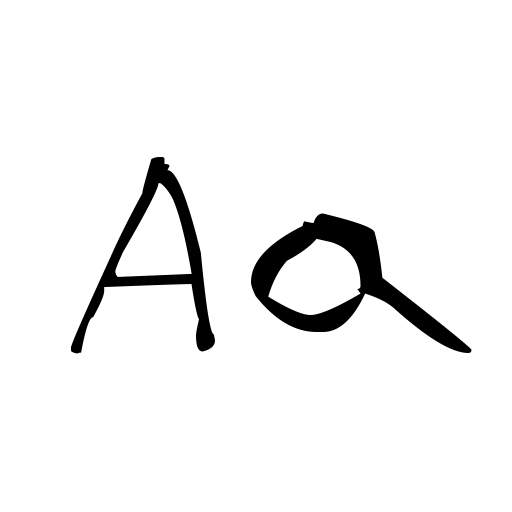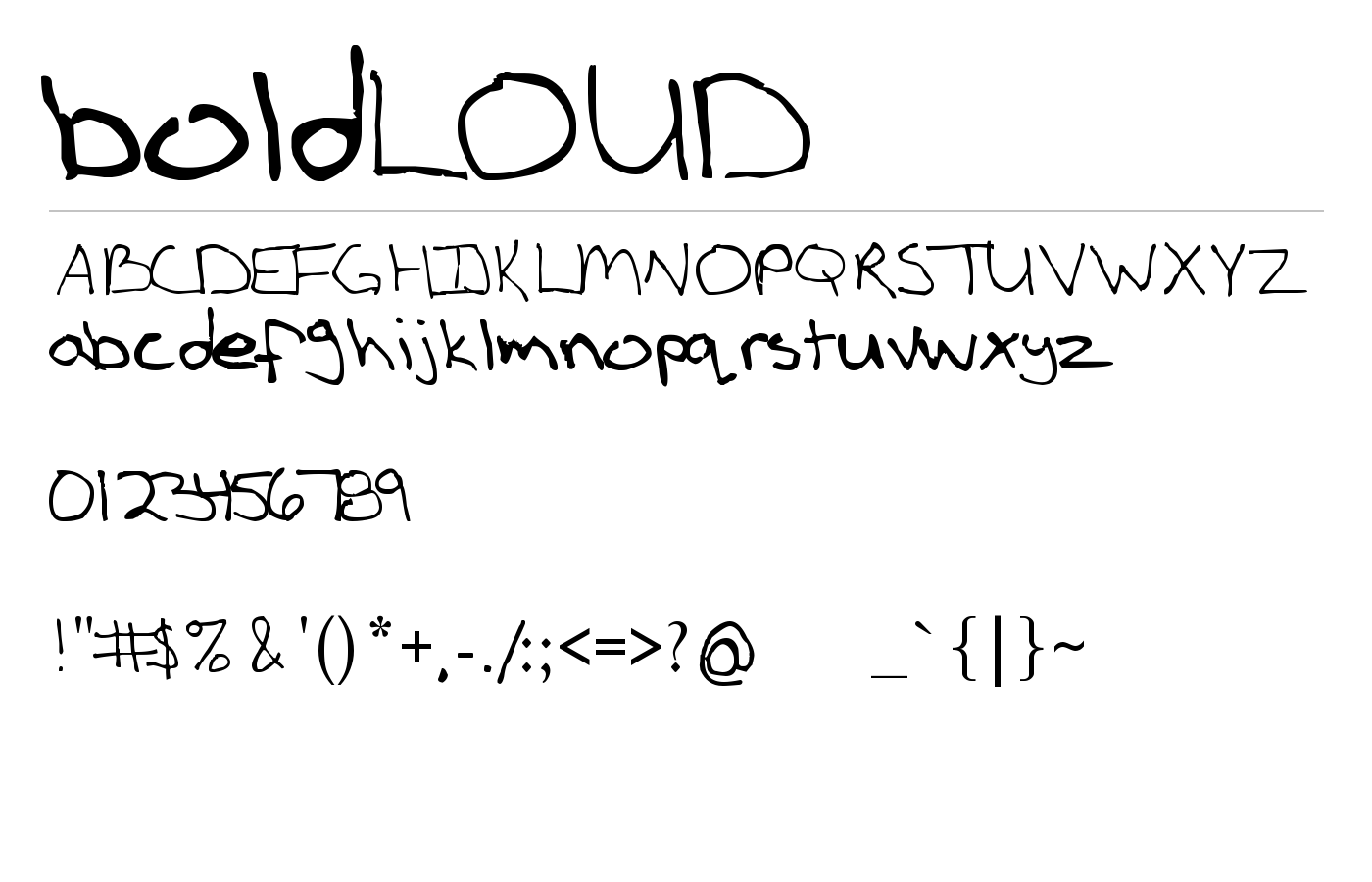
The boldLOUD font is a playful, hand-drawn sans-serif with irregular, quirky letter shapes that give it a casual and informal feel. Its uneven strokes and whimsical style make it ideal for creative projects, children’s content, and designs that want to convey a fun, approachable personality. This font works best in headlines, logos, and posters where its unique character can stand out and add a lively, personal touch.
boldLOUD Font